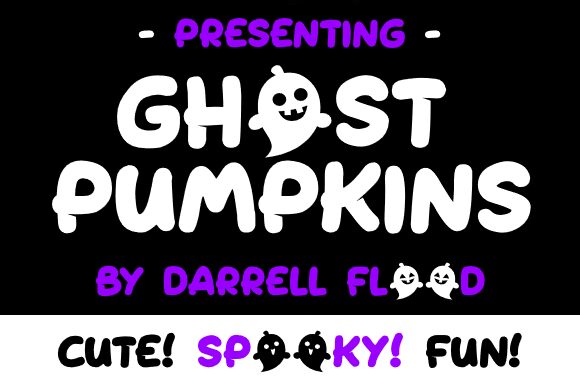
Ghost Pumpkins Italic
Ghost Pumpkins Italic, a haunting creation by designer Hawtpixel, brings the spirit of Halloween to life with its bold and semi-expanded form.
This spooky font adds a touch of eerie elegance to your projects, making it perfect for creating eye-catching Halloween party invitations or designing captivating posters for haunted houses. Its italic style adds an extra layer of mystique, while the semi-expanded width ensures maximum readability and impact.
Let Ghost Pumpkins Italic bewitch your designs and cast a spell on your audience with its macabre charm.